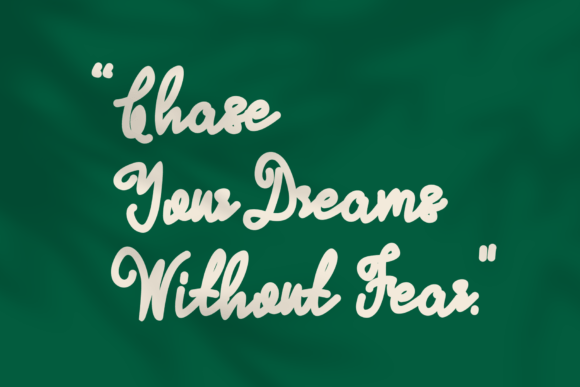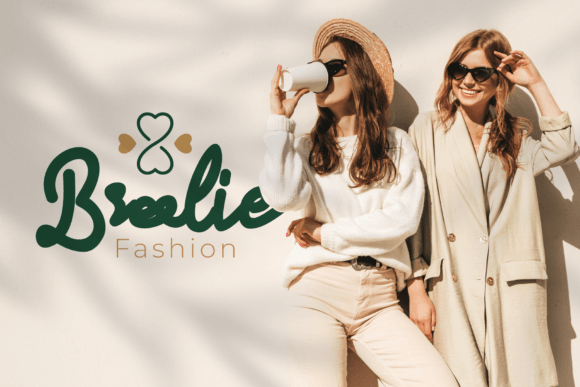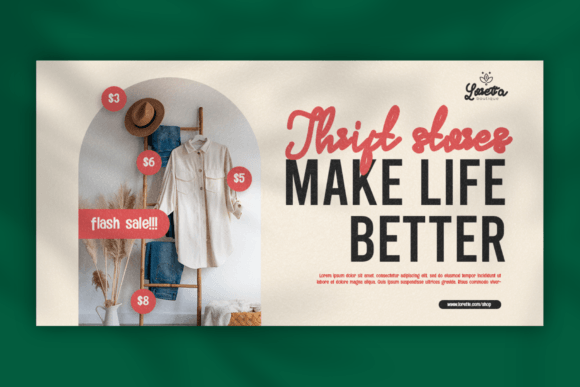
Introduction to Serene Lines Font
Infusing a beautifully hand-drawn charm into your design projects, Serene Lines is an enchanting monoline script font with rich, bold strokes.
Displaying irresistibly cute characters, it has a delightful appeal that evokes the beauty of handmade lettering Perfect for gracing invitations, fostering connection with warm greeting cards, or enhancing branding materials with an inviting feel, Serene Lines enriches your designs with its inviting warmth and geniality.
Key Features of Serene Lines Font
Why Choose Serene Lines Font?